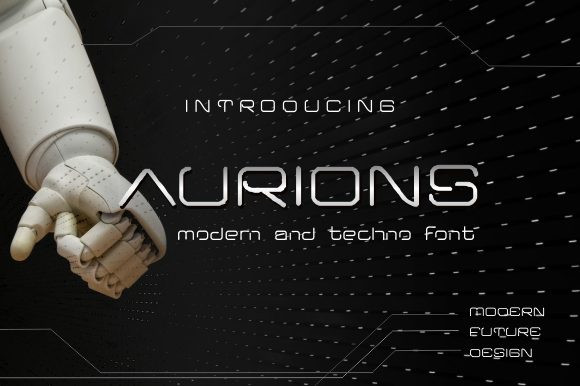
Aurions Font
Aurions is a simple and modern display font with an undeniably clean feel. With its neat and beautiful arrangement of letters, this typeface will look outstanding in both formal and non-formal designs.